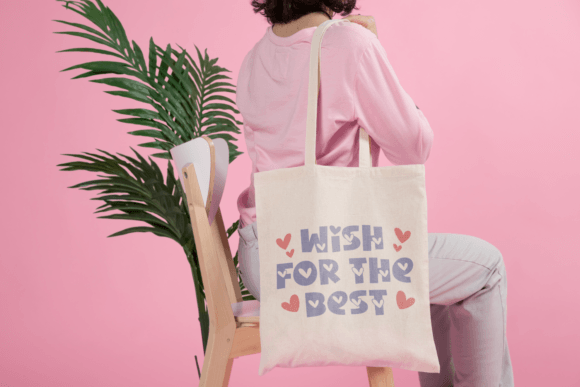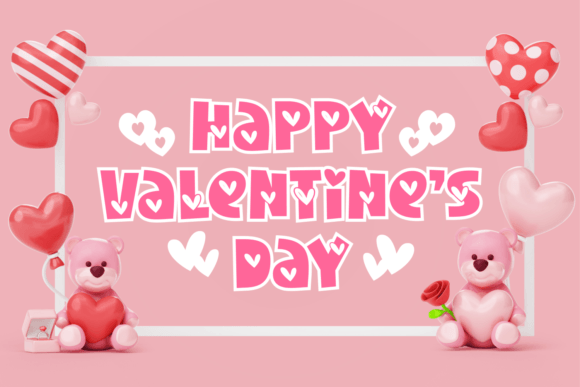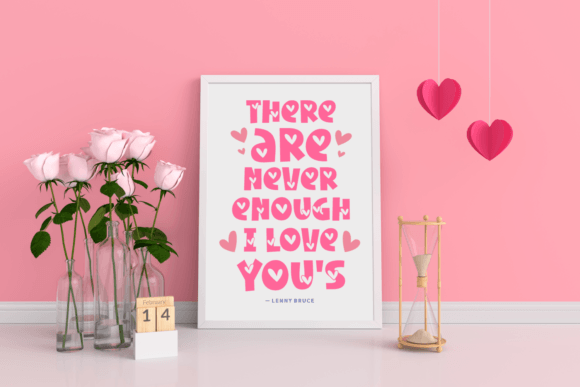
Discover the Enchanting “Dear Cheri” Font: A Perfect Blend of Love, Whimsy, and Sophistication
Are you on the hunt for a typeface that embodies the essence of love, romance, and playfulness? Look no further than “Dear Cheri”, a splendidly special font that is sure to capture your heart. This remarkable typeface, designed by 7ntypes, is a perfect blend of chic and whimsy, making it an ideal choice for creating heartfelt love messages, stylish branding identities, and captivating designs.
A Font that Speaks to the Heart
“Dear Cheri” is a love-inspired font that mirrors the jovial atmosphere of Valentine’s Day, accompanied by the inviting echo of wedding bells. Its elegant and feminine design makes it a premier choice for creating greeting cards, school crafts, and other projects that require a touch of affection and romance. The font’s pleasing palette of chic and whimsy seamlessly serves as a delightful embellishment, radiating a playful and feminine ambiance that enhances any design.
One of the standout features of “Dear Cheri” is its versatility. This artfully patterned typeface accommodates various design demands, from fashioning stylish branding identities and logotypes to designing fashionable attire or creating captivating book covers. Whether you’re a designer, crafter, or DIY enthusiast, “Dear Cheri” is sure to equip you to undertake a captivating project.
With its lively text and captivating design, “Dear Cheri” enhances craft projects, magazines, posters, promotional collateral, or t-shirts in a sophisticated manner. The font’s adaptability makes it an excellent choice for a wide range of applications, including:
- School crafts and DIY projects
- Fashion branding and logotypes
- Book covers and magazine layouts
- Posters and promotional materials
- T-shirts and apparel design
A Multilingual Font for Global Designers
As a multilingual font, “Dear Cheri” is designed to cater to a global audience. Whether you’re designing for a local market or a global brand, this font is sure to meet your needs. Its adaptability and versatility make it an excellent choice for designers who work with clients from diverse linguistic and cultural backgrounds.
Why Choose “Dear Cheri”?
So, why should you choose “Dear Cheri” for your next design project? Here are just a few compelling reasons:
- Unique and captivating design that embodies love and romance
- Versatile and adaptable for various design demands
- Multilingual support for global designers
- Perfect for a wide range of applications, from greeting cards to book covers
- Designed by 7ntypes, a reputable font foundry
In conclusion, “Dear Cheri” is a splendidly special font that is sure to capture your heart. Its unique blend of love, whimsy, and sophistication makes it an ideal choice for designers, crafters, and DIY enthusiasts. Whether you’re creating heartfelt love messages, stylish branding identities, or captivating designs, “Dear Cheri” is the perfect typeface for your next project. So why wait? Discover the enchanting “Dear Cheri” font today and take your designs to the next level!